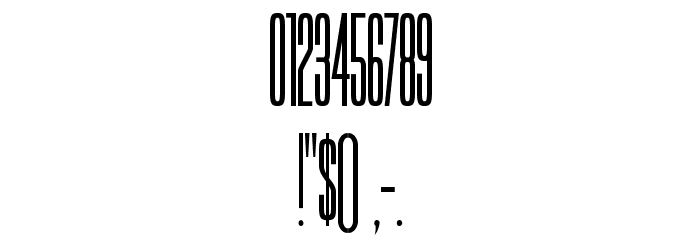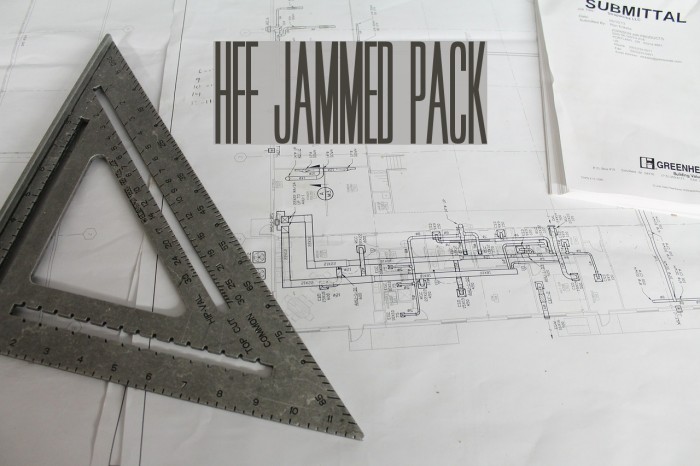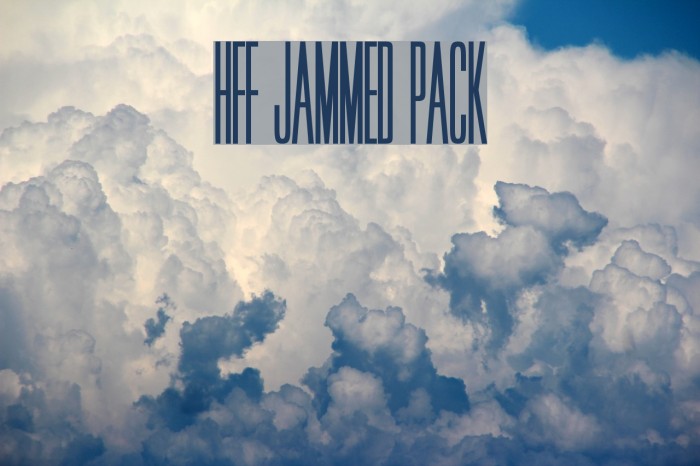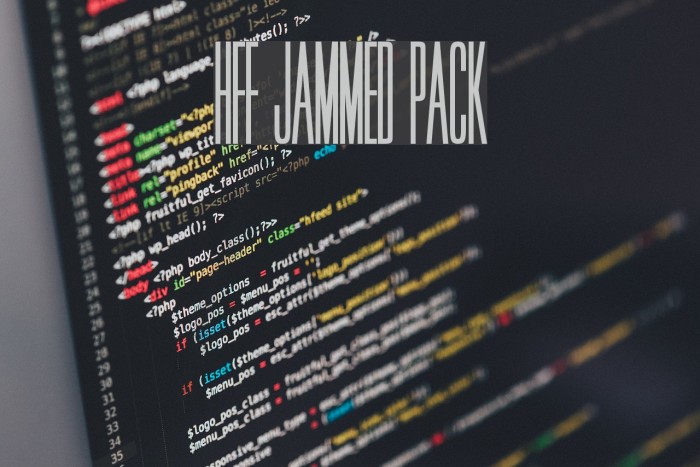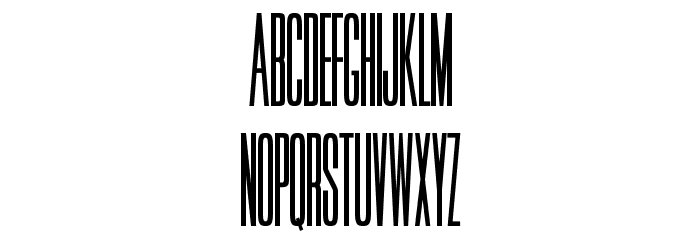
HFF Jammed Pack Font
HFF Jammed Pack Description
This font features a tall, narrow design with a strong vertical emphasis, creating a striking and bold appearance. The characters are tightly spaced, enhancing the compact and condensed look. The strokes are consistent in width, offering a uniform and cohesive style. This font is highly legible, even at smaller sizes, due to its clear and straightforward design. Its modern and sleek aesthetic makes it suitable for a variety of applications where a strong visual impact is desired.
A tall, narrow, and bold font with tight spacing and a modern aesthetic from Uncategorized fonts.
- Proposed Projects: Ideal for posters, headlines, branding, and any design requiring a bold statement.
- Character Spacing: Tight